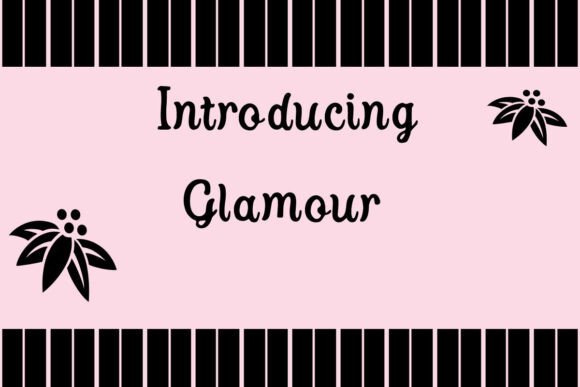
Unleash the Elegance: Discover the Enchanting Charm of Glamour Script Font
Are you on the hunt for a font that exudes sophistication, elegance, and a touch of glamour? Look no further than the captivating Glamour Script Font! This exquisite font is a perfect blend of style and versatility, making it a must-have for designers, crafters, and anyone looking to elevate their creative projects.
A Font that Transcends Simple Penmanship
Glamour Script Font is more than just a font – it’s a statement piece. With its fluid strokes and enchanting charm, it effortlessly transcends beyond simple penmanship, adding a touch of luxury to any design. Whether you’re working on a branding project, a magazine layout, or a simple sticker design, this font is sure to make your content stand out.
Endless Possibilities: Where to Use Glamour Script Font
One of the best things about Glamour Script Font is its versatility. It’s perfect for a wide range of projects, including:
- Shirt Designs: Add a touch of sophistication to your apparel designs with Glamour Script Font. Whether you’re creating custom t-shirts, hoodies, or tote bags, this font is sure to make your designs pop.
- Stickers: Give your stickers a professional touch with Glamour Script Font. From labels to decals, this font is perfect for adding a touch of elegance to your sticker designs.
- Branding: Take your branding to the next level with Glamour Script Font. Use it to create stunning logos, business cards, and letterheads that exude sophistication and style.
- Magazine Layouts: Add a touch of glamour to your magazine layouts with Glamour Script Font. Whether you’re designing a fashion magazine or a lifestyle publication, this font is sure to make your content shine.
- SVG Files: Create eye-catching SVG files with Glamour Script Font. Perfect for cutting machines like Cricut, this font is sure to take your designs to the next level.
- Greeting Cards: Add a touch of warmth and elegance to your greeting cards with Glamour Script Font. Whether you’re creating birthday cards, thank-you cards, or holiday cards, this font is sure to make your cards extra special.
Breathe Life into Your Cricut Projects
If you’re a Cricut enthusiast, you’ll love working with Glamour Script Font. This font is perfect for creating stunning projects, from custom signs to intricate designs. With its smooth strokes and elegant charm, Glamour Script Font is sure to take your Cricut projects to the next level.
Captivate Audiences with Stunning Posters and Social Media Posts
Glamour Script Font is also perfect for creating stunning posters and social media posts. Whether you’re promoting a product, service, or event, this font is sure to grab attention and captivate audiences. Use it to create eye-catching posters, Facebook posts, Instagram stories, and more!
Why Choose Glamour Script Font?
So why choose Glamour Script Font over other fonts? Here are just a few reasons:
- Unique Style: Glamour Script Font has a unique style that’s sure to make your designs stand out.
- Versatility: This font is perfect for a wide range of projects, from branding to magazine layouts.
- Elegance: Glamour Script Font exudes elegance and sophistication, making it perfect for high-end designs.